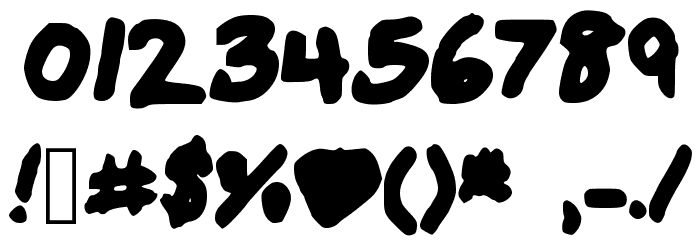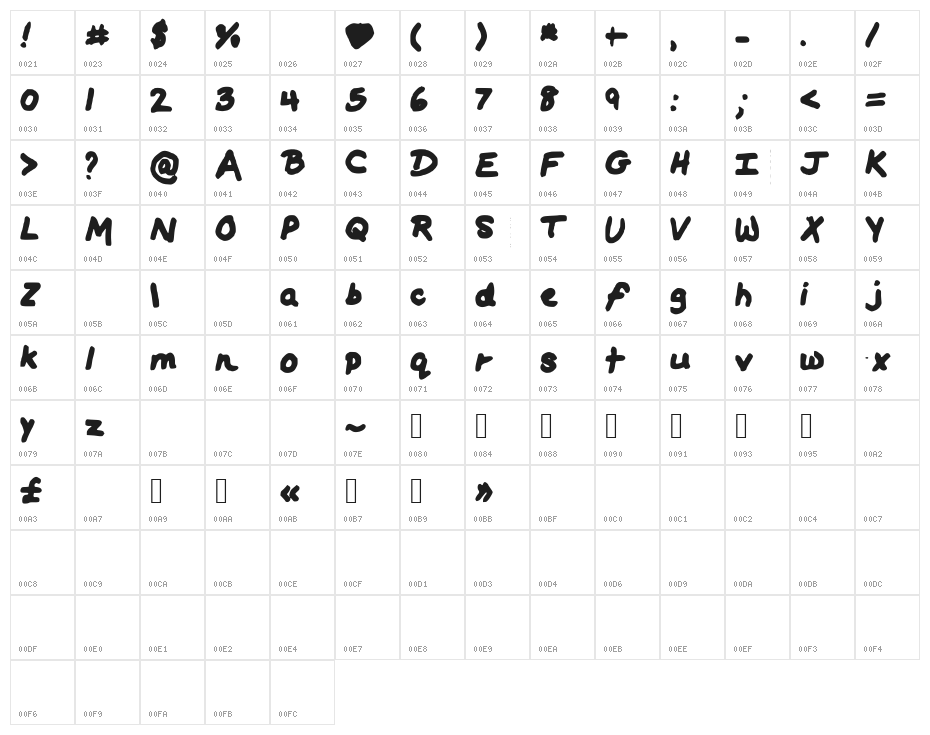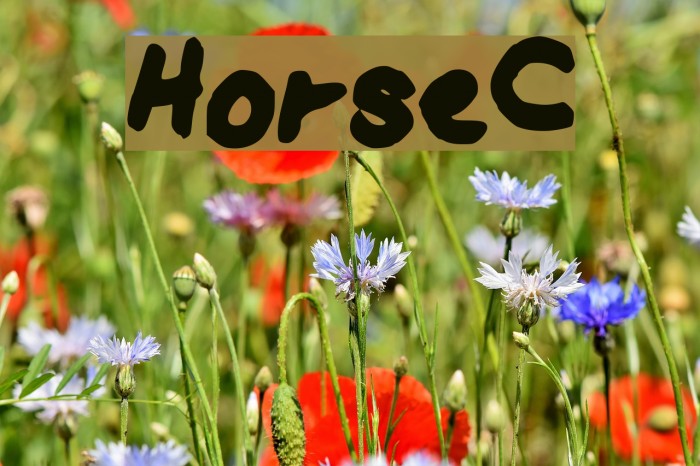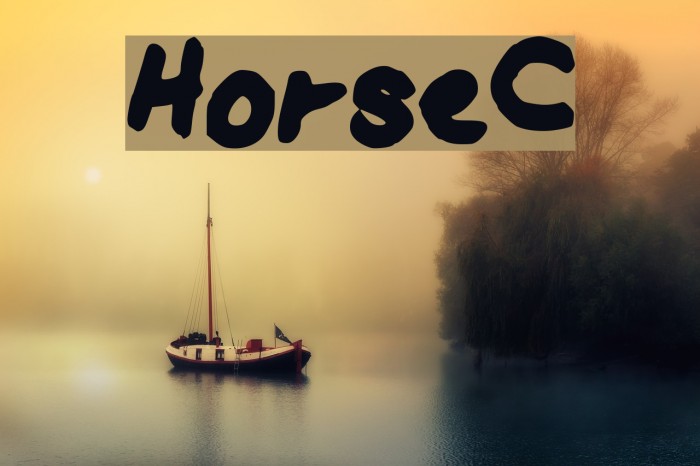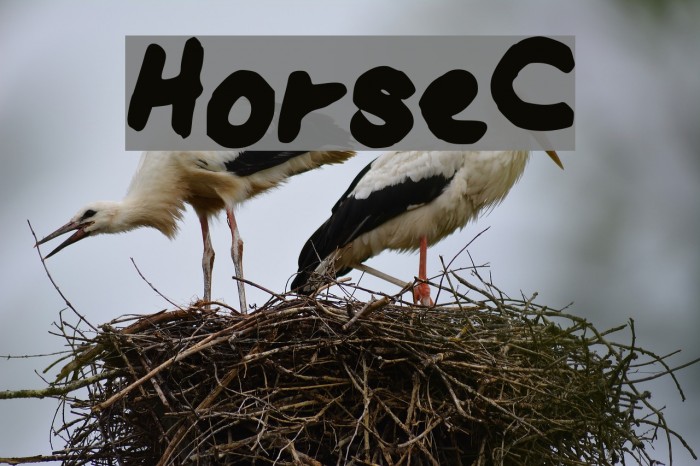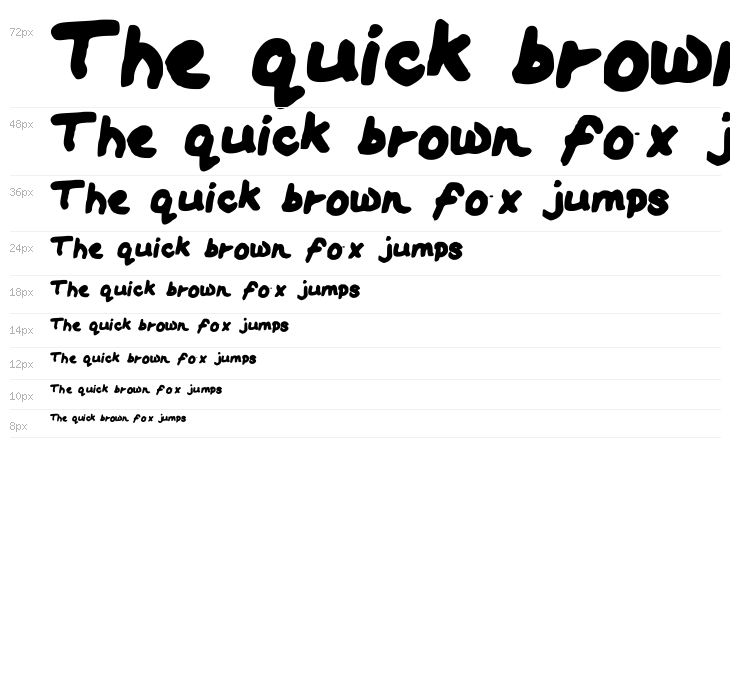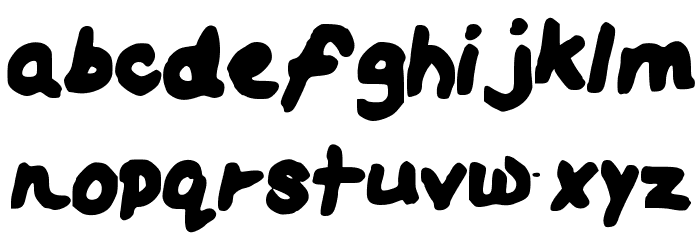
HorseC Font
HorseC Description
This font features a bold and playful style with a handwritten appearance. The letters are thick and rounded, giving a casual and friendly vibe. The uppercase and lowercase letters maintain a consistent weight, with slight variations in stroke width that add to its informal charm. The numbers and special characters follow the same playful design, making the font versatile for creative projects. Its boldness ensures readability, while the unique character shapes provide a distinctive look.
| Overall Style | Playful, Casual |
| Proposed Projects | Great for children's books, playful branding, greeting cards, and social media graphics. |